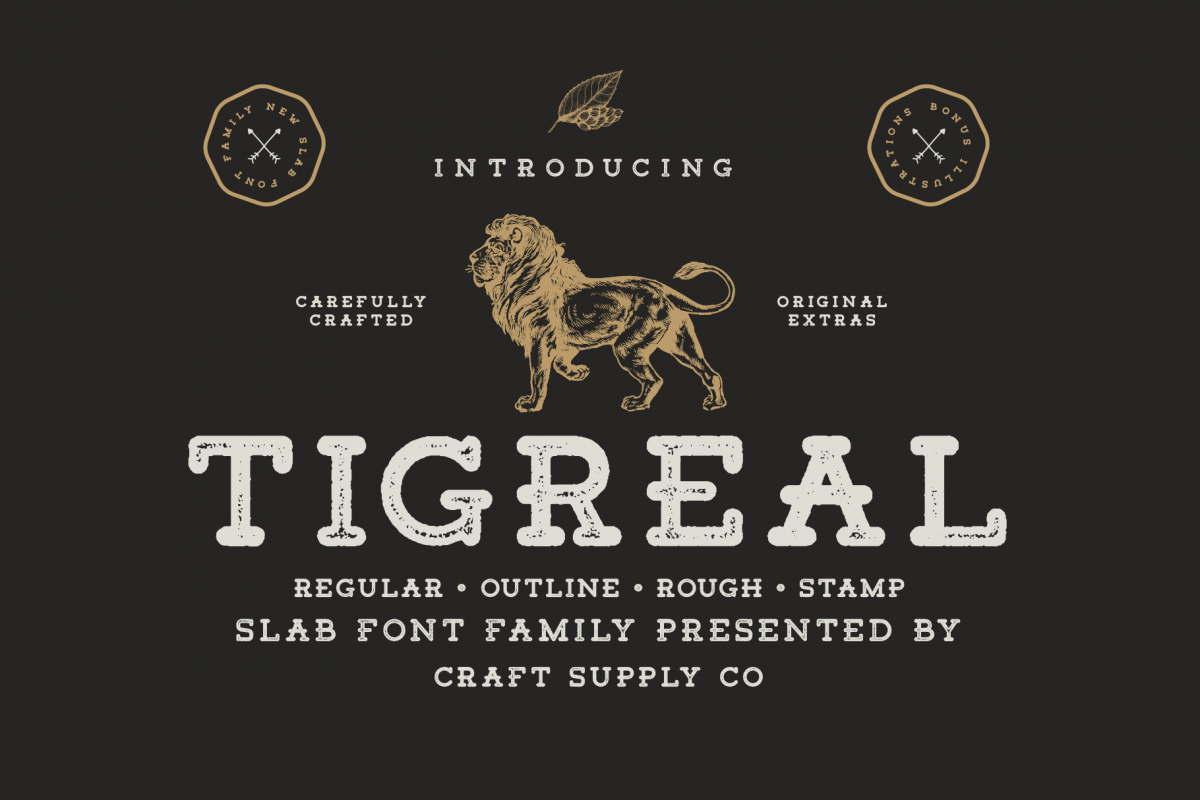
Tigreal Font Family BONUS Illustrations
Tigreal Font Family + Illustrations includes 4 Style Fonts. It can be used to create almost all types of design projects like print materials. Just use your imagination and some graphic design set in Extras, your project will become more alive and look great than ever with one of the Tigreal Font.
You want to make a greeting card or a package design, or even a brand identity, craft design, any DIY project, book title, wedding font, pop vintage design, retro design or any purpose to make your art / design project look pretty and trendy? Feel free to play with all the patterns and shape!
1. All Caps font
4. Accents (Multilingual characters) (AÀÁÂÃÄÅCÇDÐEÈÉÊËIÌÍÎÏNÑOØÒÓÔÕÖUÙÜÚÛWYÝŸỲŸÆŒßÞ)